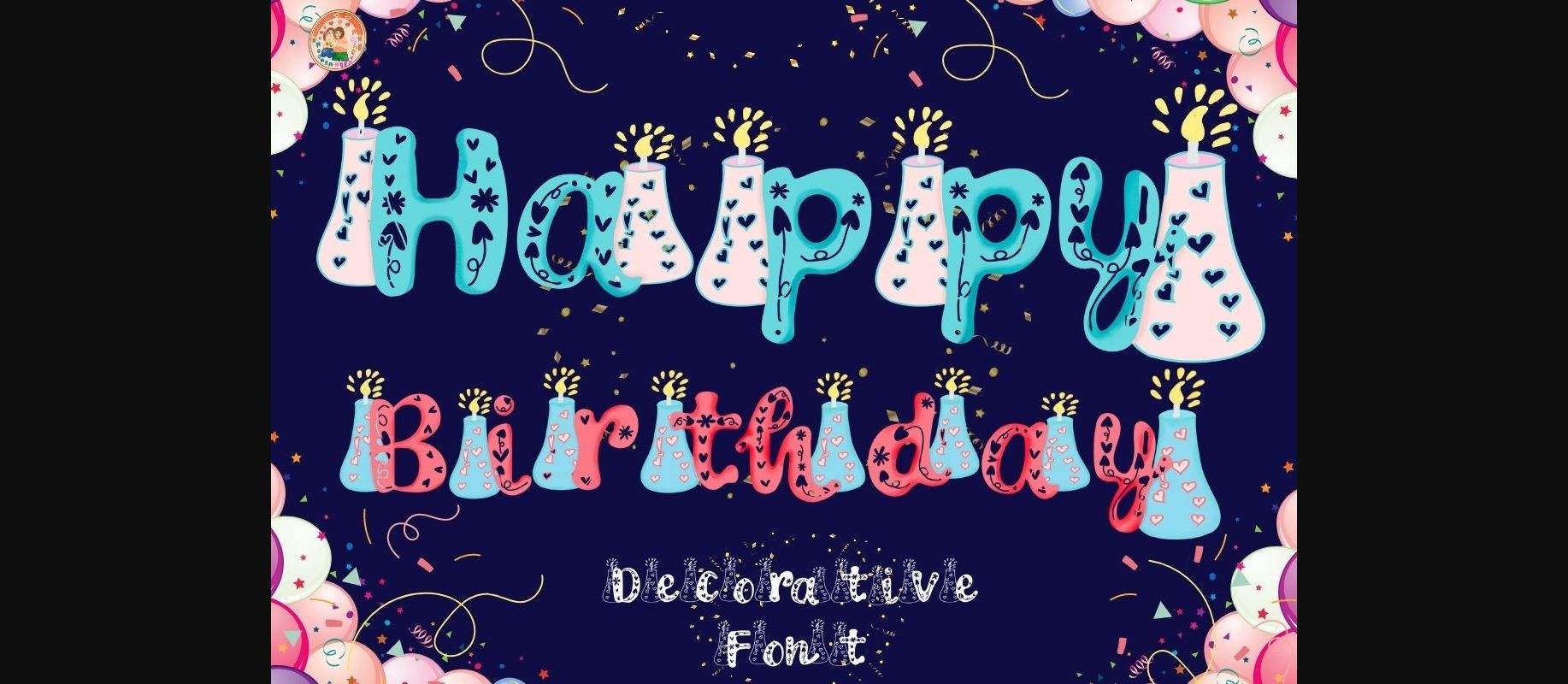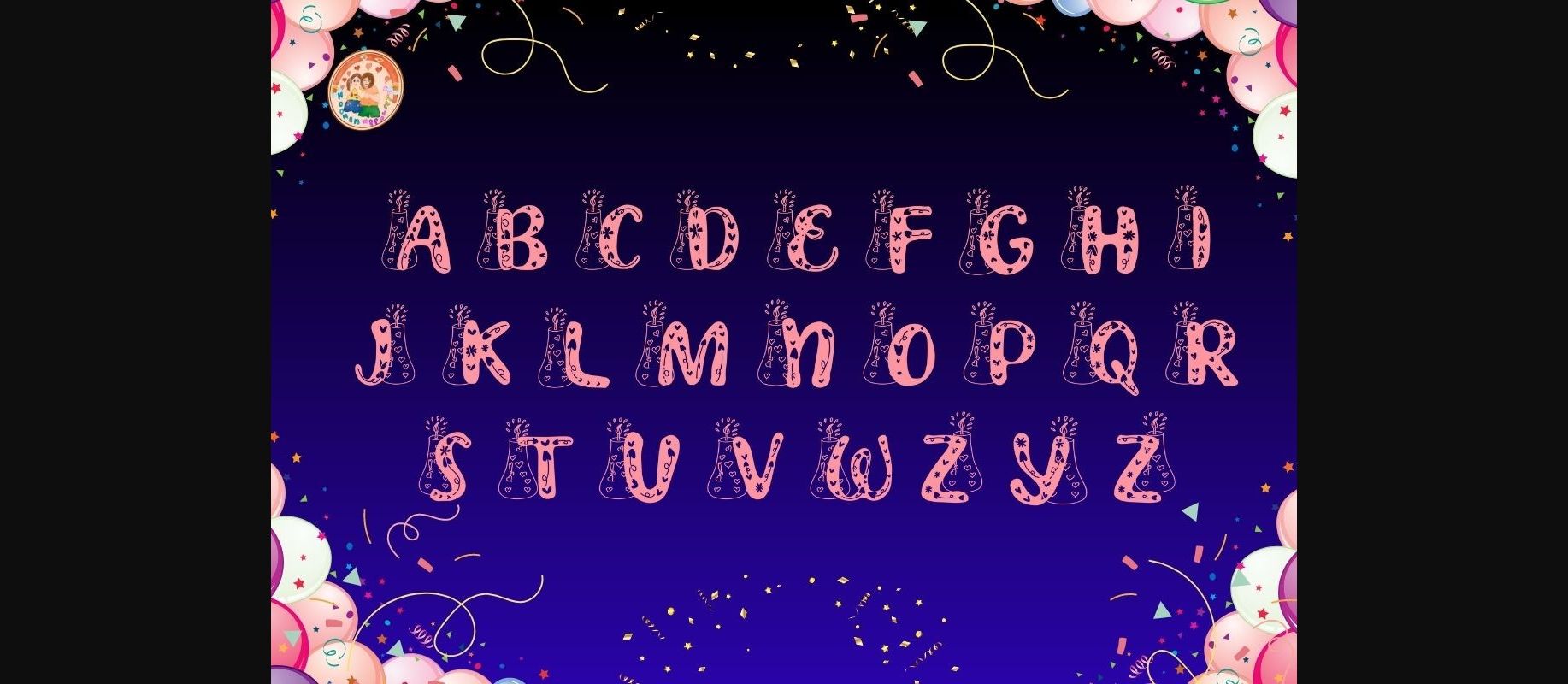
About Happy Birthday Font
Happy Birthday is a cute and striking decorative font. It is perfectly suited for use in projects related to birthdays, children, teenagers, congratulations, wedding anniversary parties, invitations and so much more.